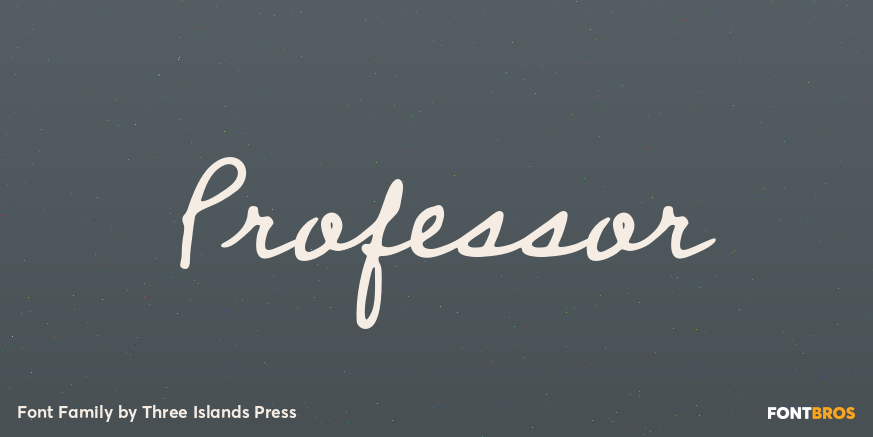
Professor
About Professor
My father is retired from teaching after a distinguished career as a professor at the University of Texas (and other colleges). He\’s also retired from writing in longhand, ever since I digitized his script several years ago. Professor is a slightly modified…